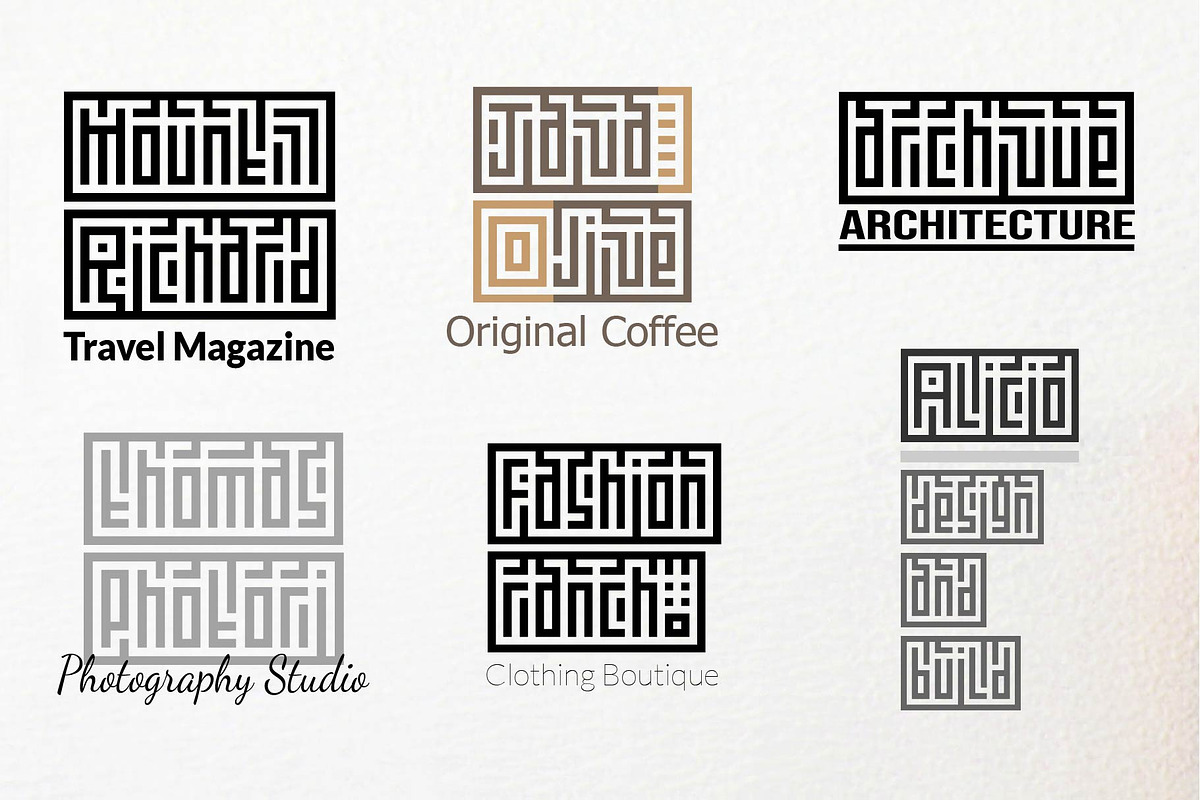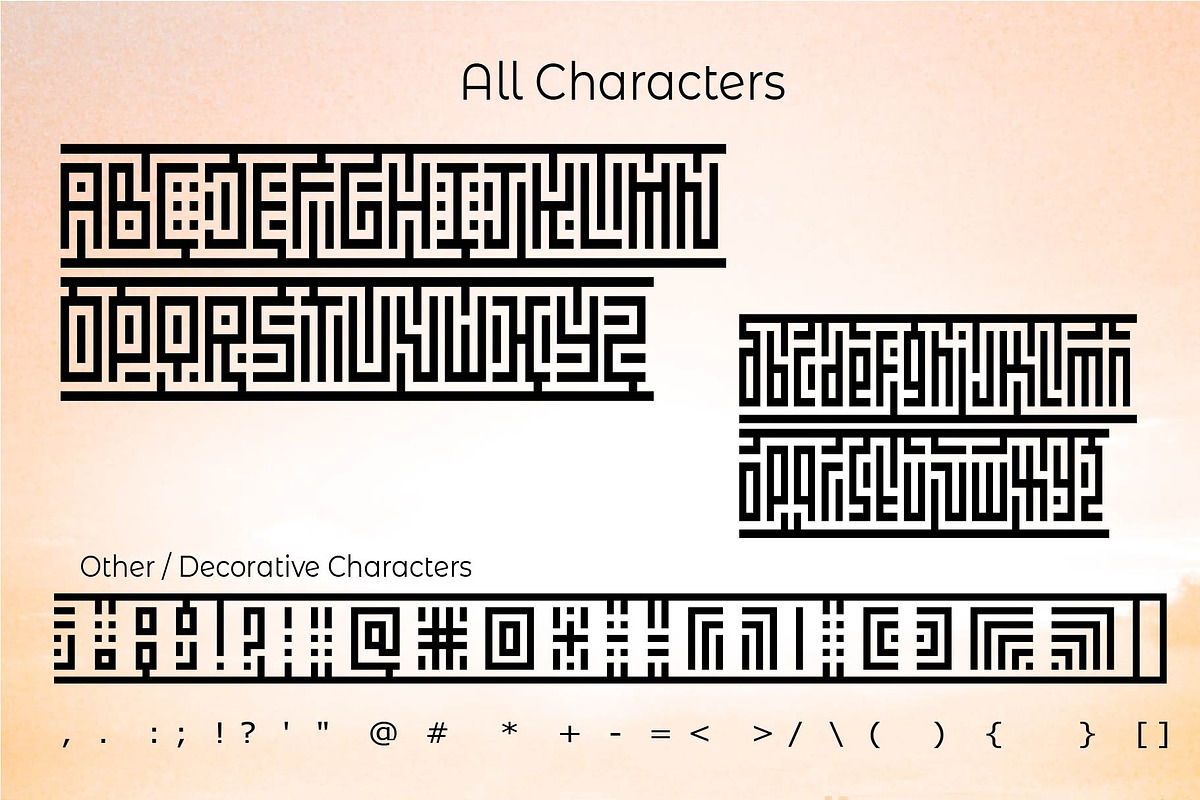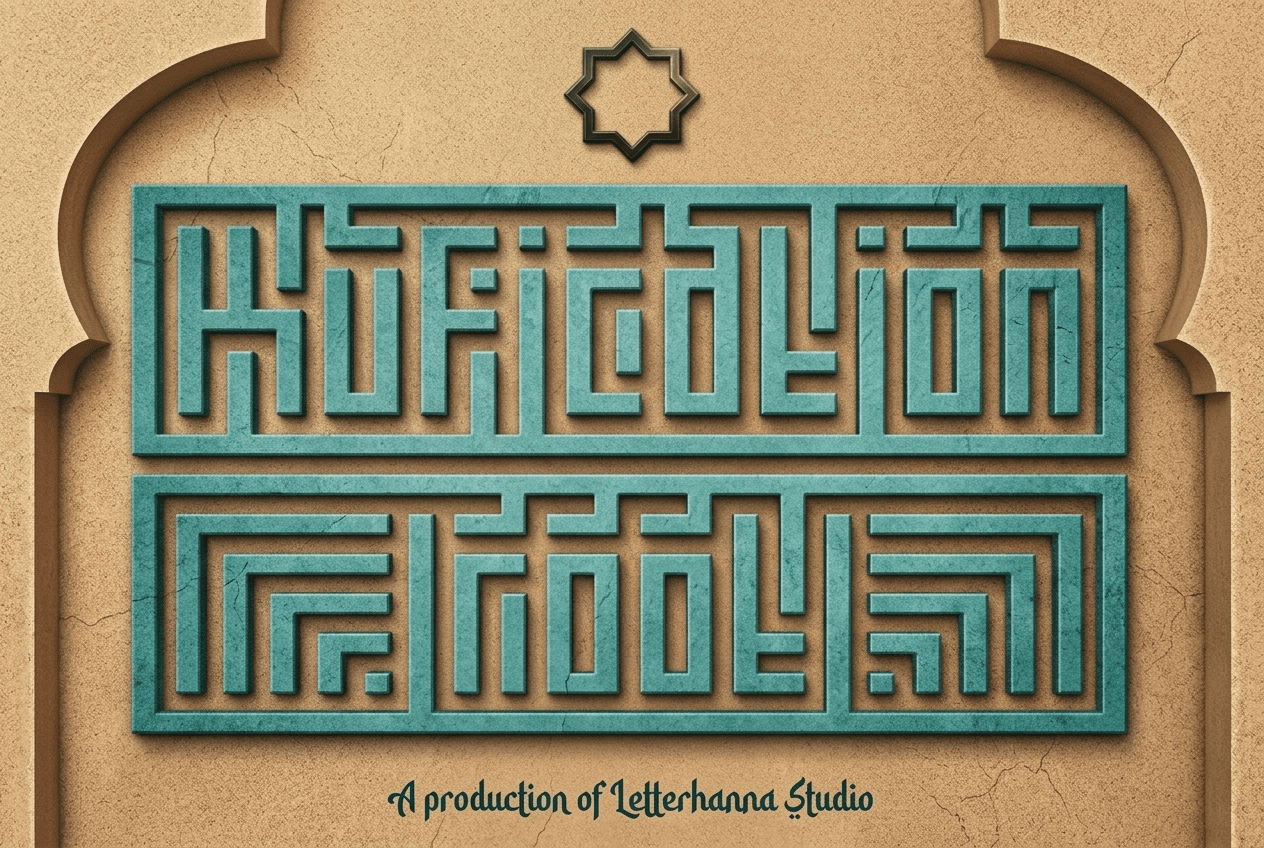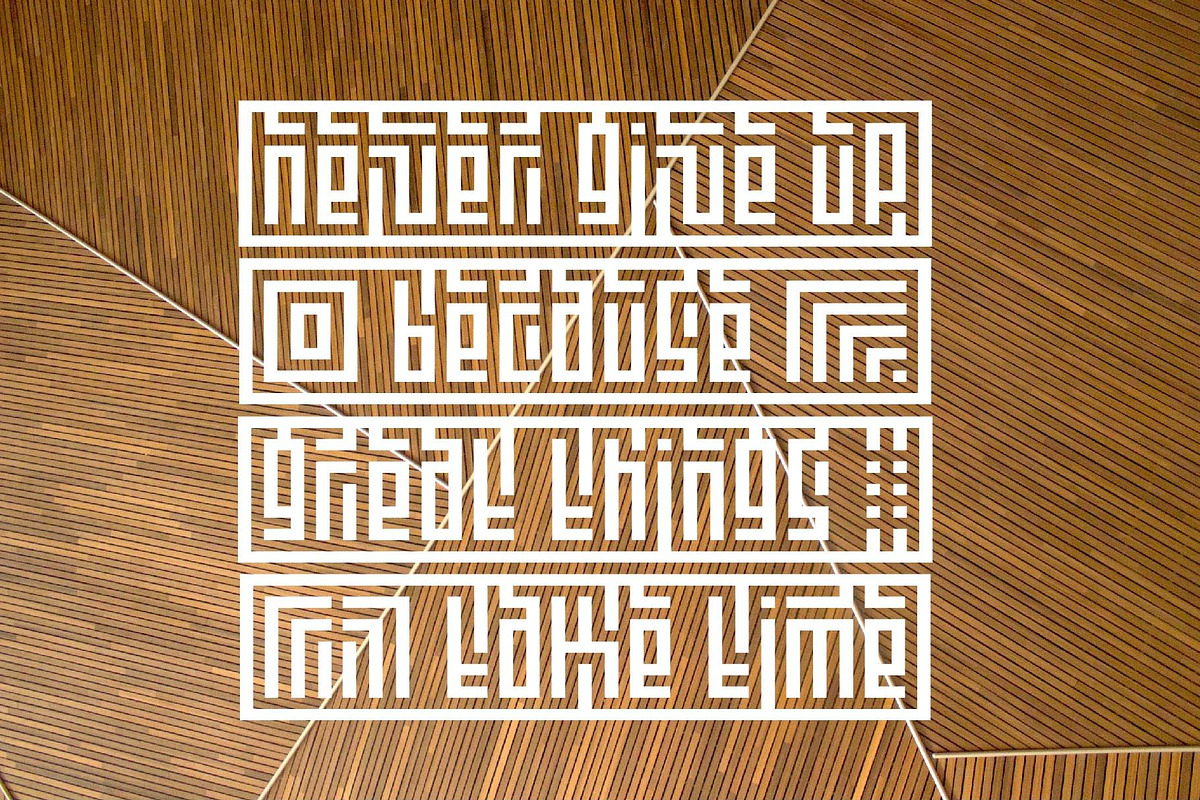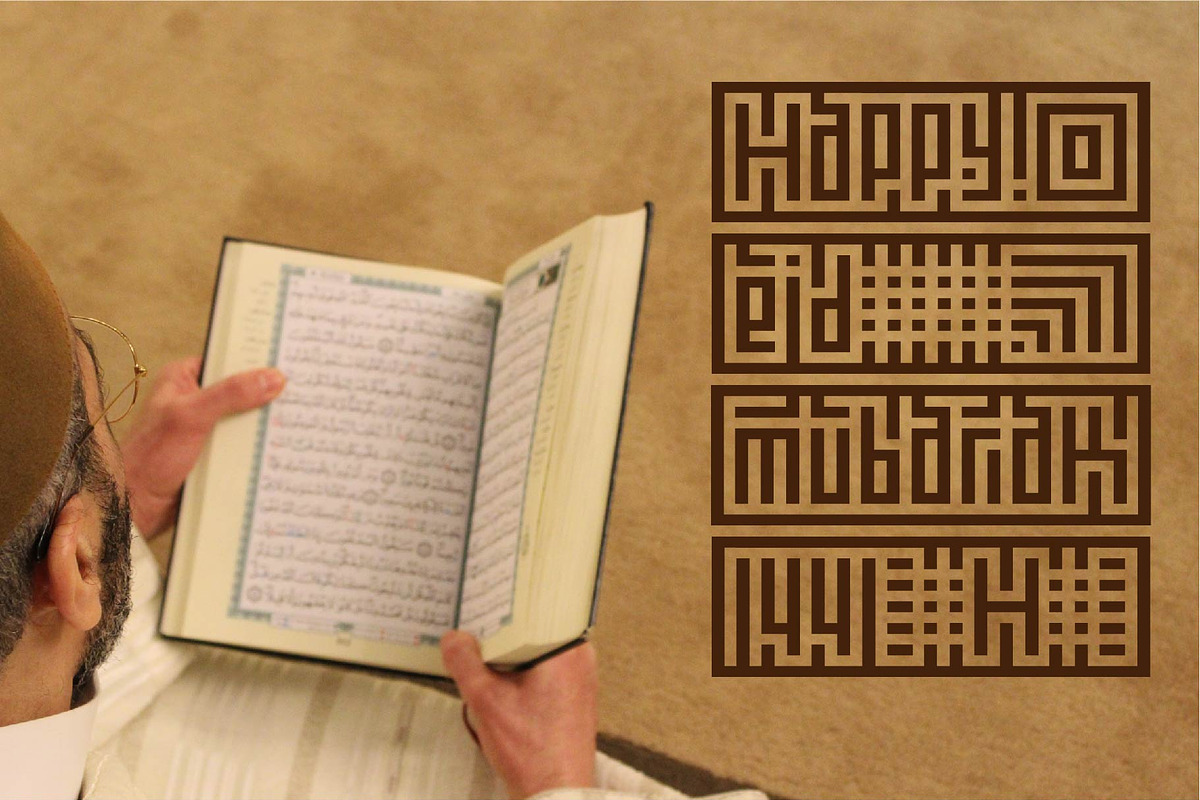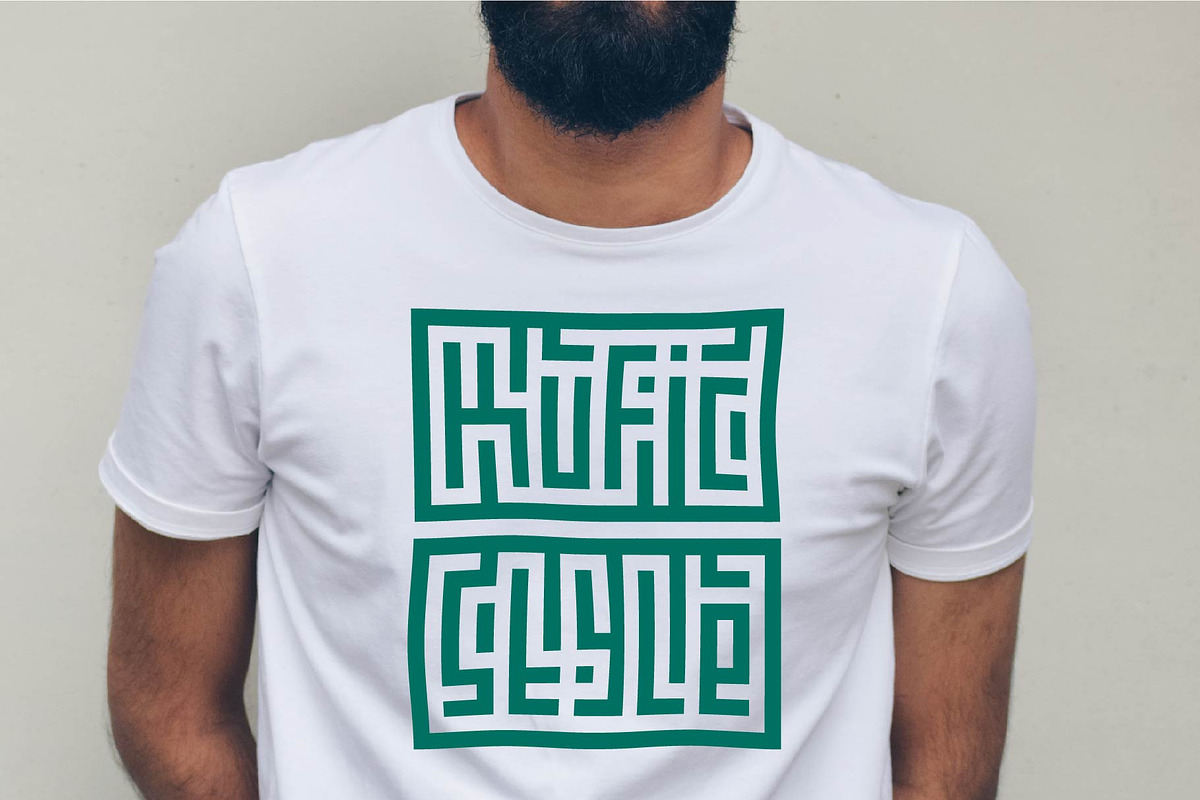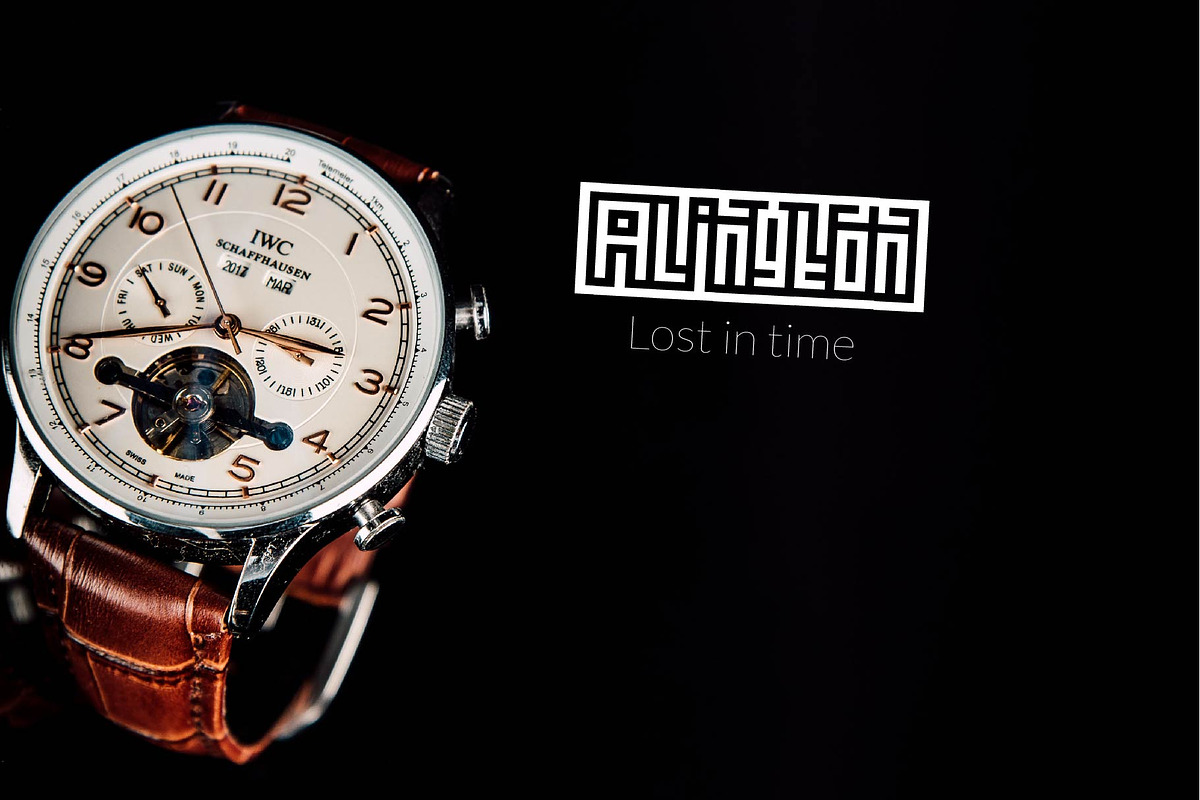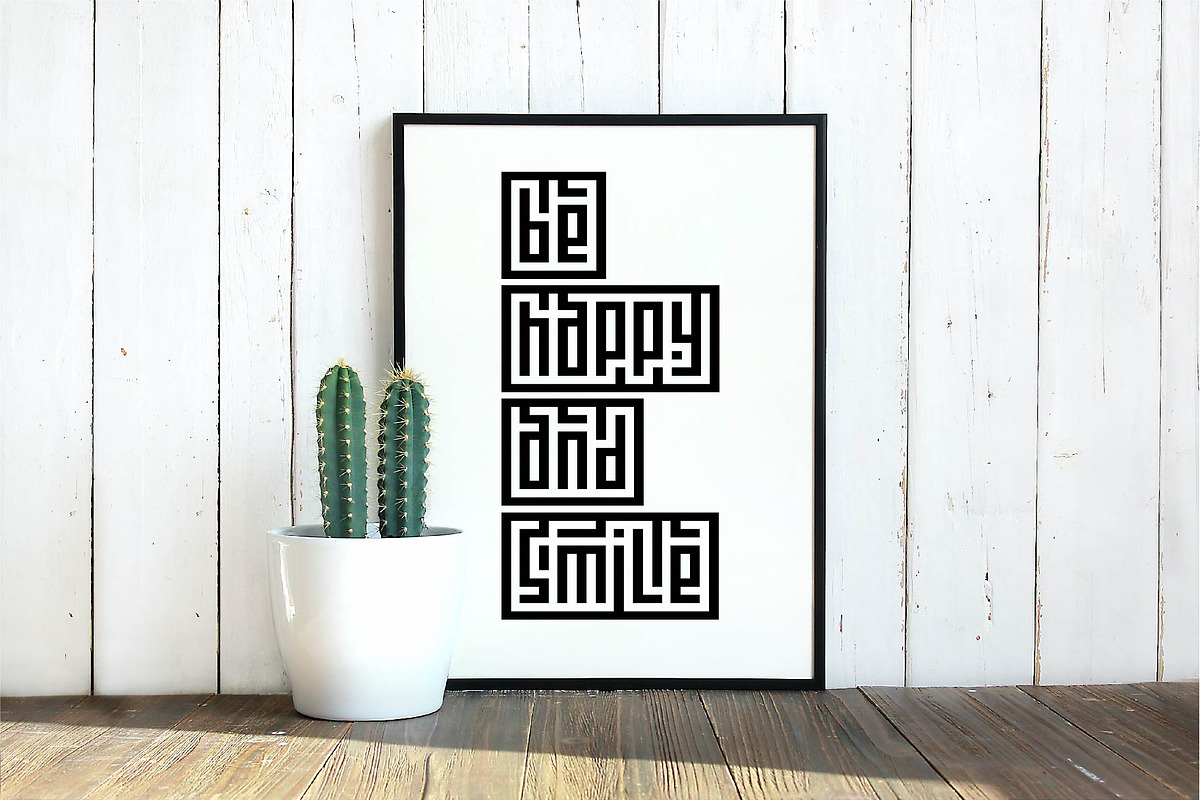
Kufication Root Font
Kufication Root is a Latin display font inspired by Arabic Square Kufic calligraphy — one of the most geometric and structurally precise scripts in Islamic visual history. Every letterform is built on a strict grid system, giving it a bold, architectural quality that feels both timeless and contemporary.
Designed for creatives who need elegance with cultural depth, Kufication Root is especially suited for Islamic branding, heritage projects, and any identity that benefits from a strong, distinctive visual voice.
— What makes it different
Unlike standard display fonts, Kufication Root borrows its proportions and angular logic directly from centuries-old Arabic calligraphy. The result is a Latin font that carries genuine visual weight — structured, authoritative, and immediately recognizable.
— Best used for
Logos and brand identities · Product packaging and labels · Islamic and cultural event materials · Invitations and certificates · Social media graphics and profile pictures · Watermarks and photography overlays · Advertising and print collateral